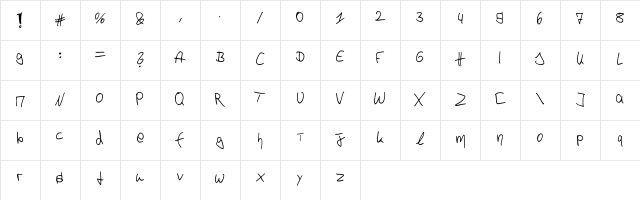
p4r4d0x_h4ndwr1tt3n Free Font
Design Context for p4r4d0x_h4ndwr1tt3n
p4r4d0x_h4ndwr1tt3n is a composed and adaptable typeface that performs quietly and consistently across a wide range of design contexts.